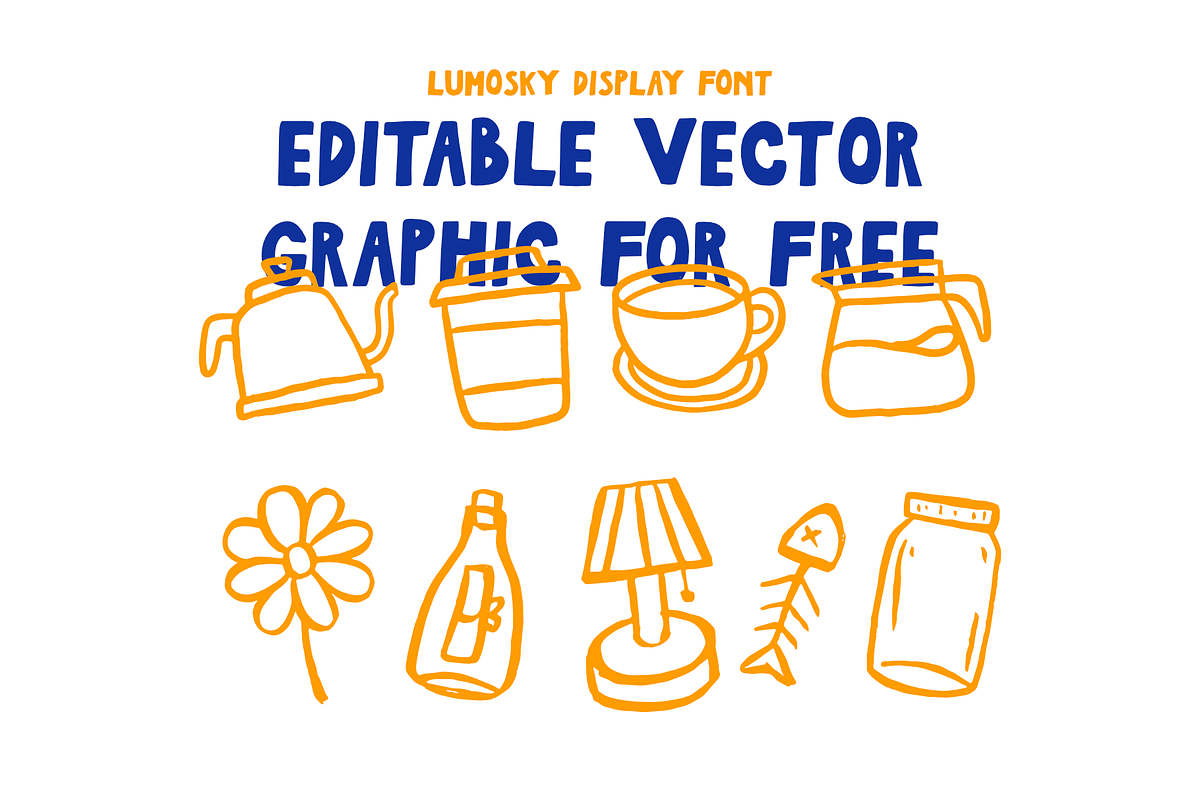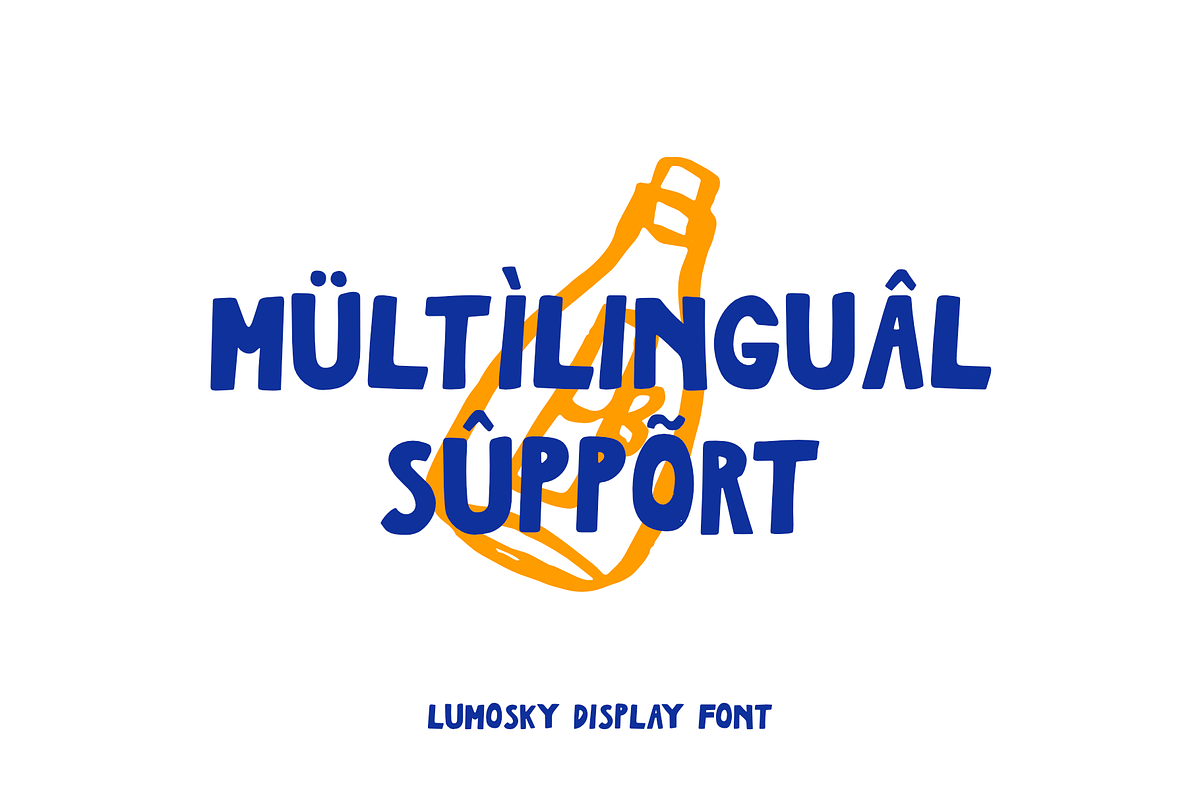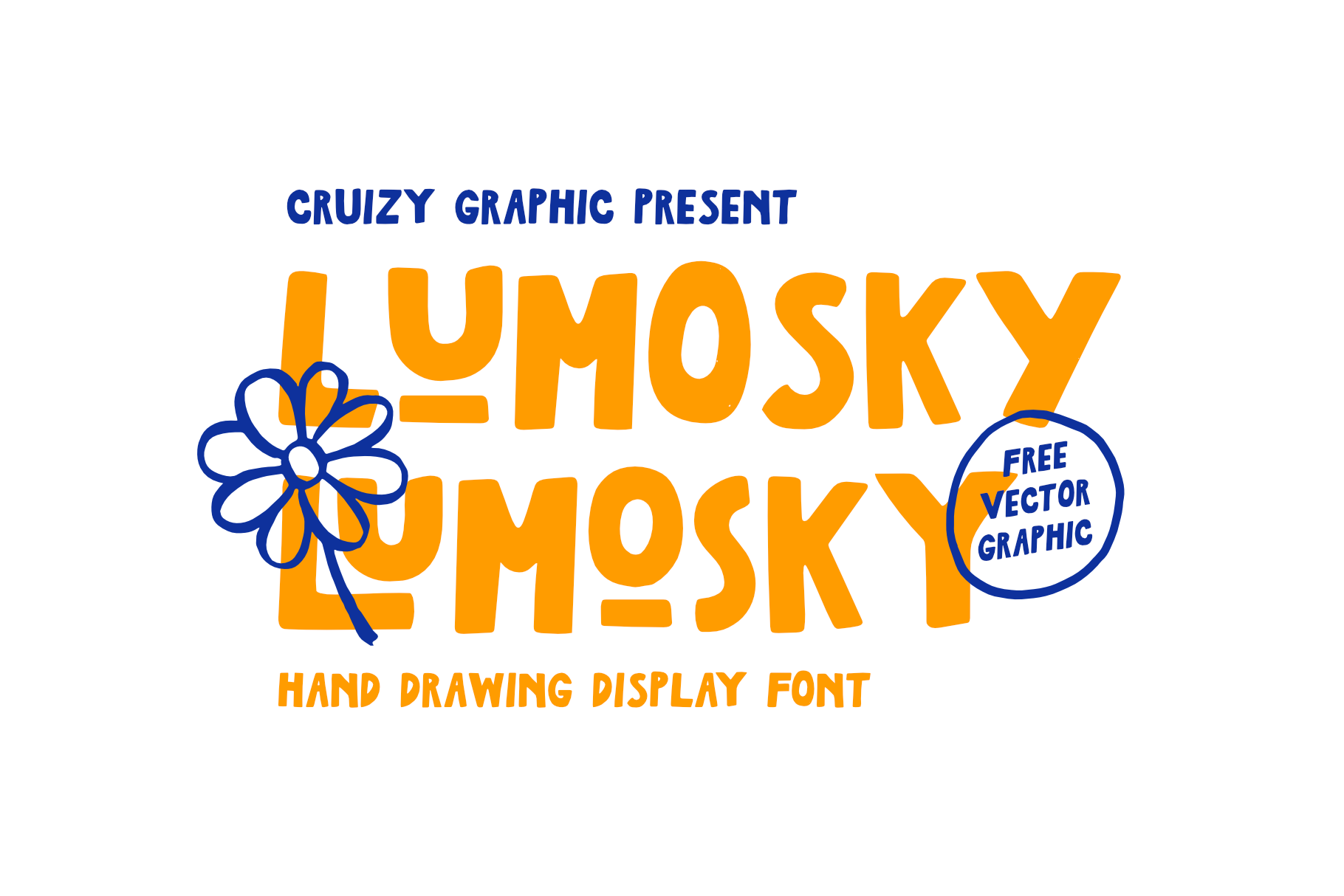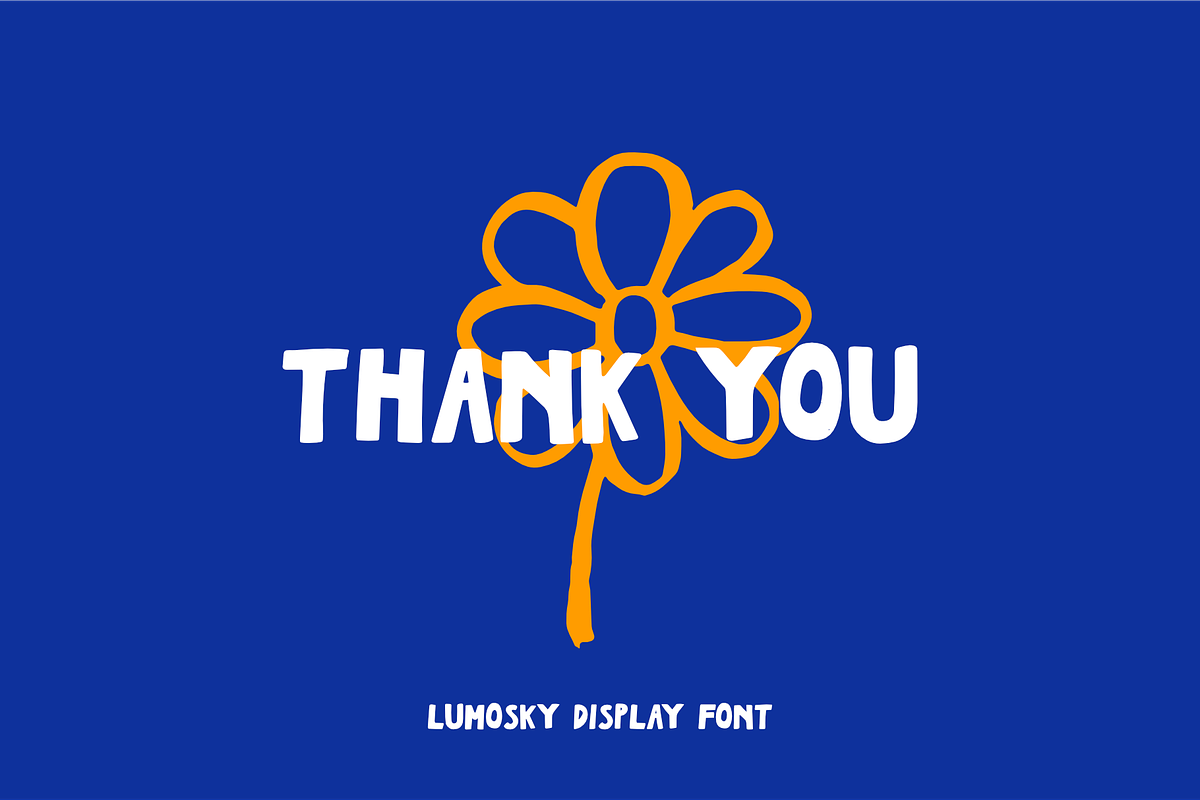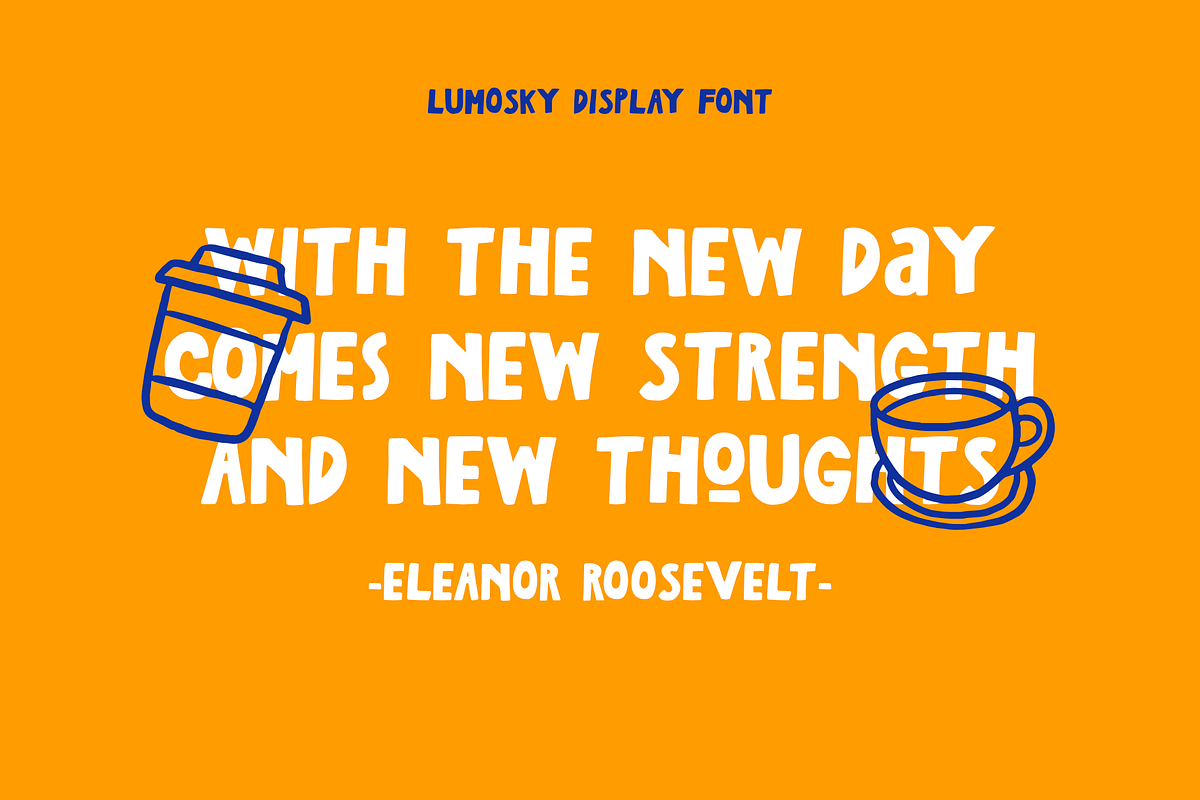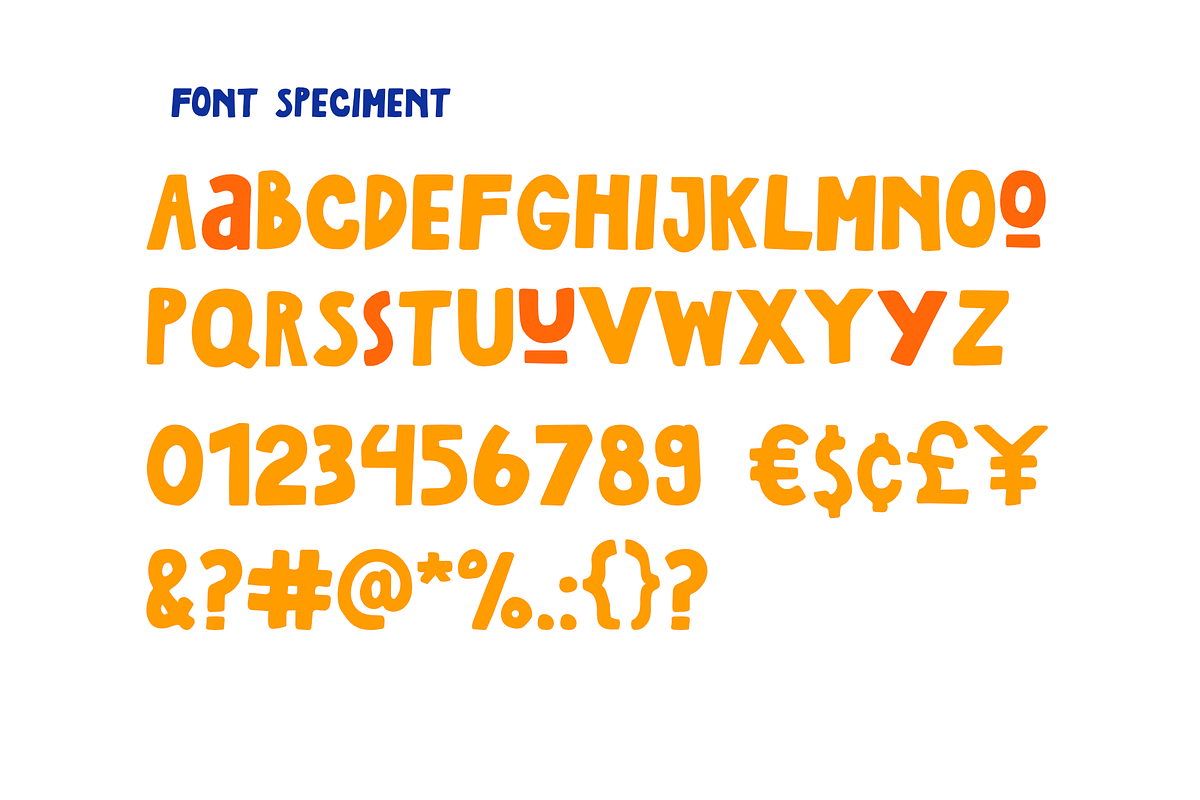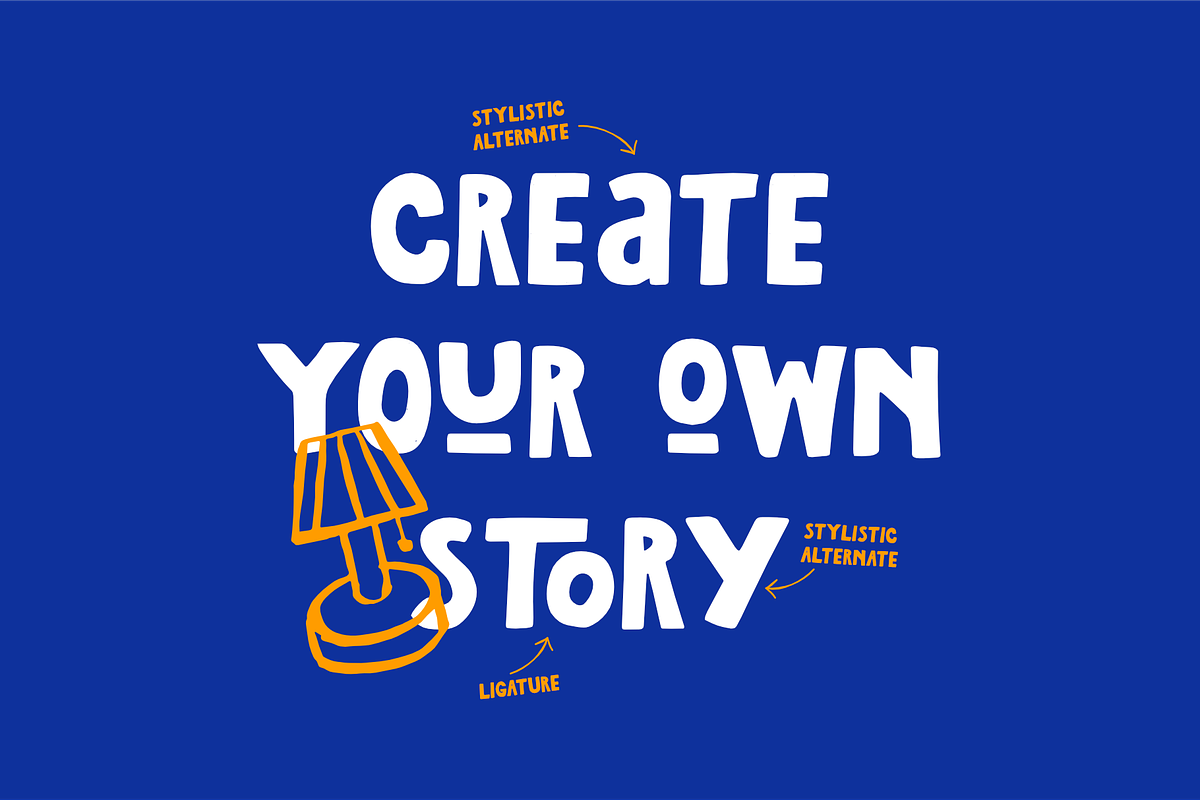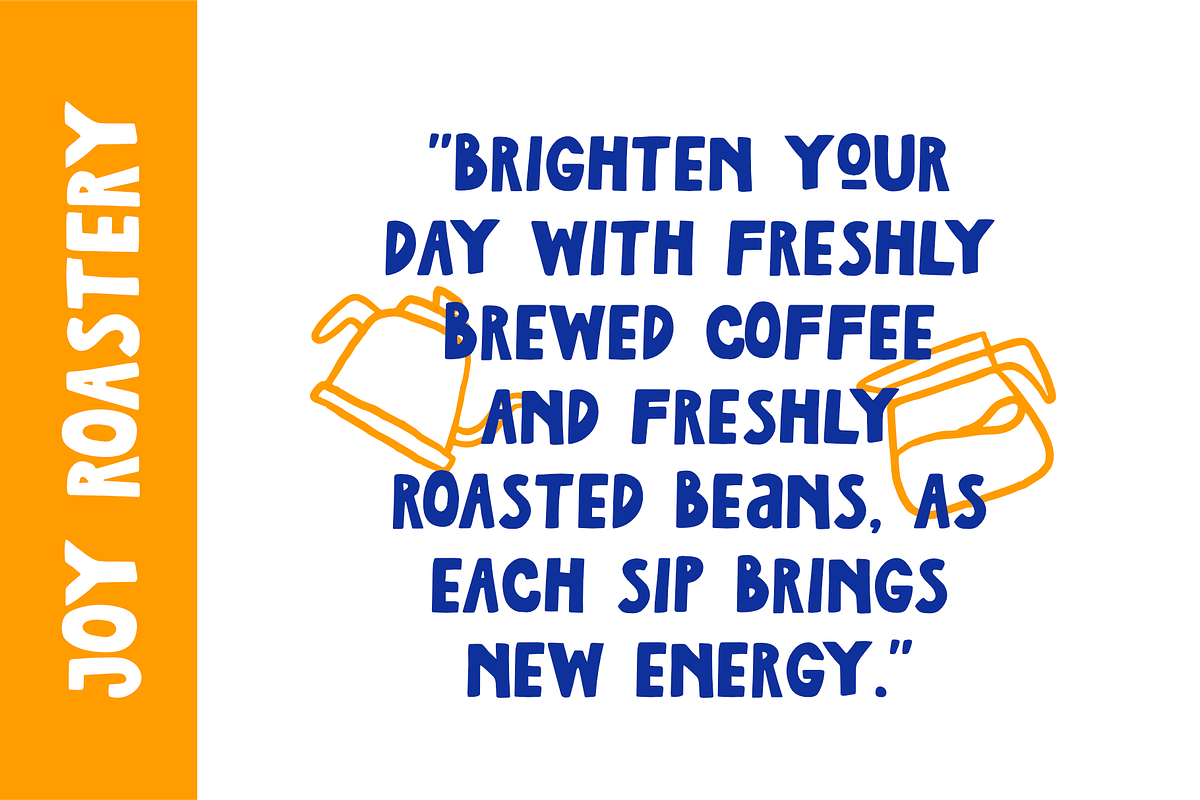
Lumosky - Handdrawn Display Font
Introducing LUMOSKY, our Hand-Drawn Font Collection, a typeface that breathes the spirit of creativity and craftsmanship into every letter. Inspired by the raw, authentic feel of street signs and the warm, personal touch of handmade art, this font is perfect for adding a rustic yet stylish flair to your designs.
Whether you’re branding coffee packaging, crafting chocolate labels, designing food products, or creating unique merchandising and book covers, this font exudes charm and character. Each stroke captures the essence of hand-drawn artistry, making your project stand out with a genuine, artisanal vibe that resonates with authenticity.
Choose this font to infuse your designs with a nostalgic, handmade feel that speaks directly to the heart of your audience. It’s not just a font; it’s a story waiting to be told, one letter at a time.
- All-Caps Character
- Symbol, Punctuation & Currency
- Stylistic Alternate